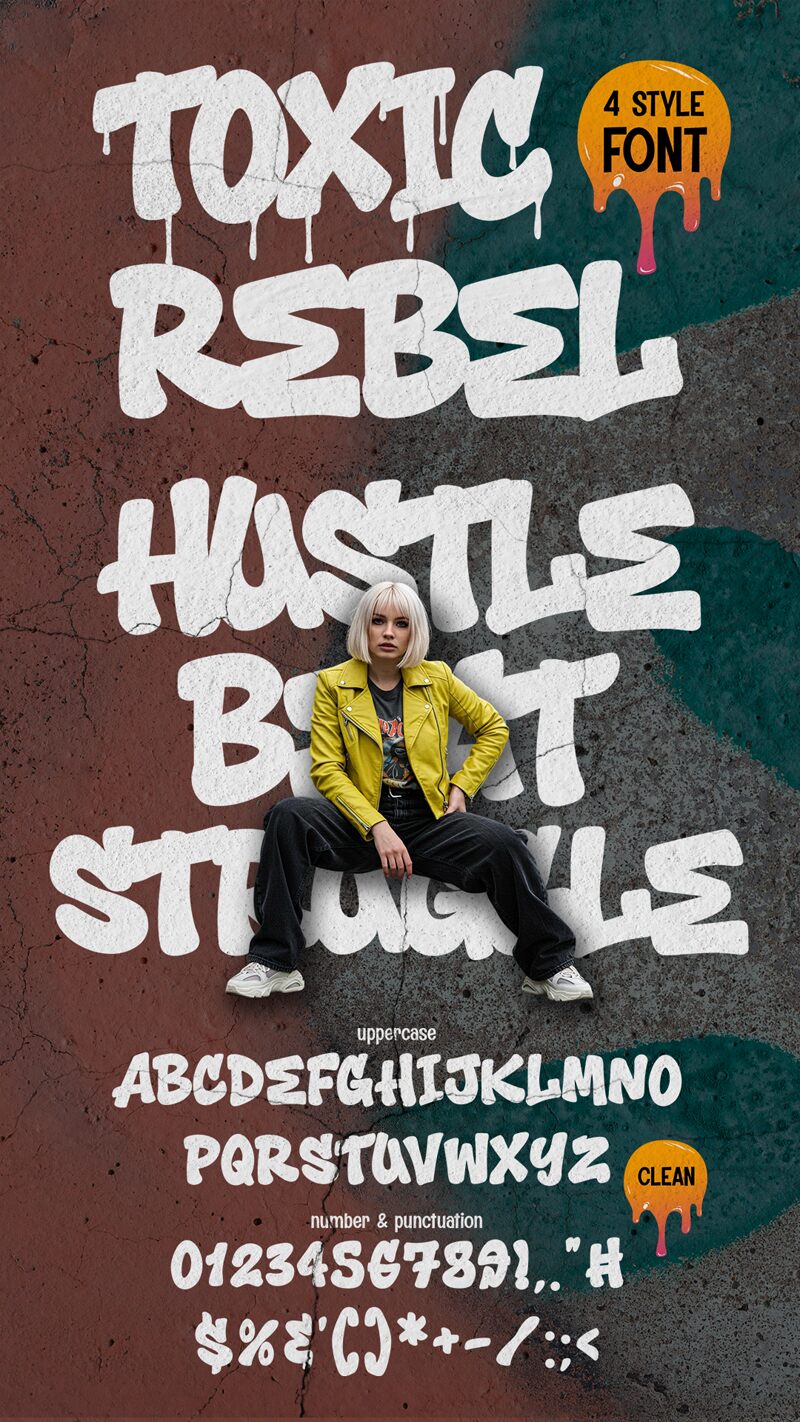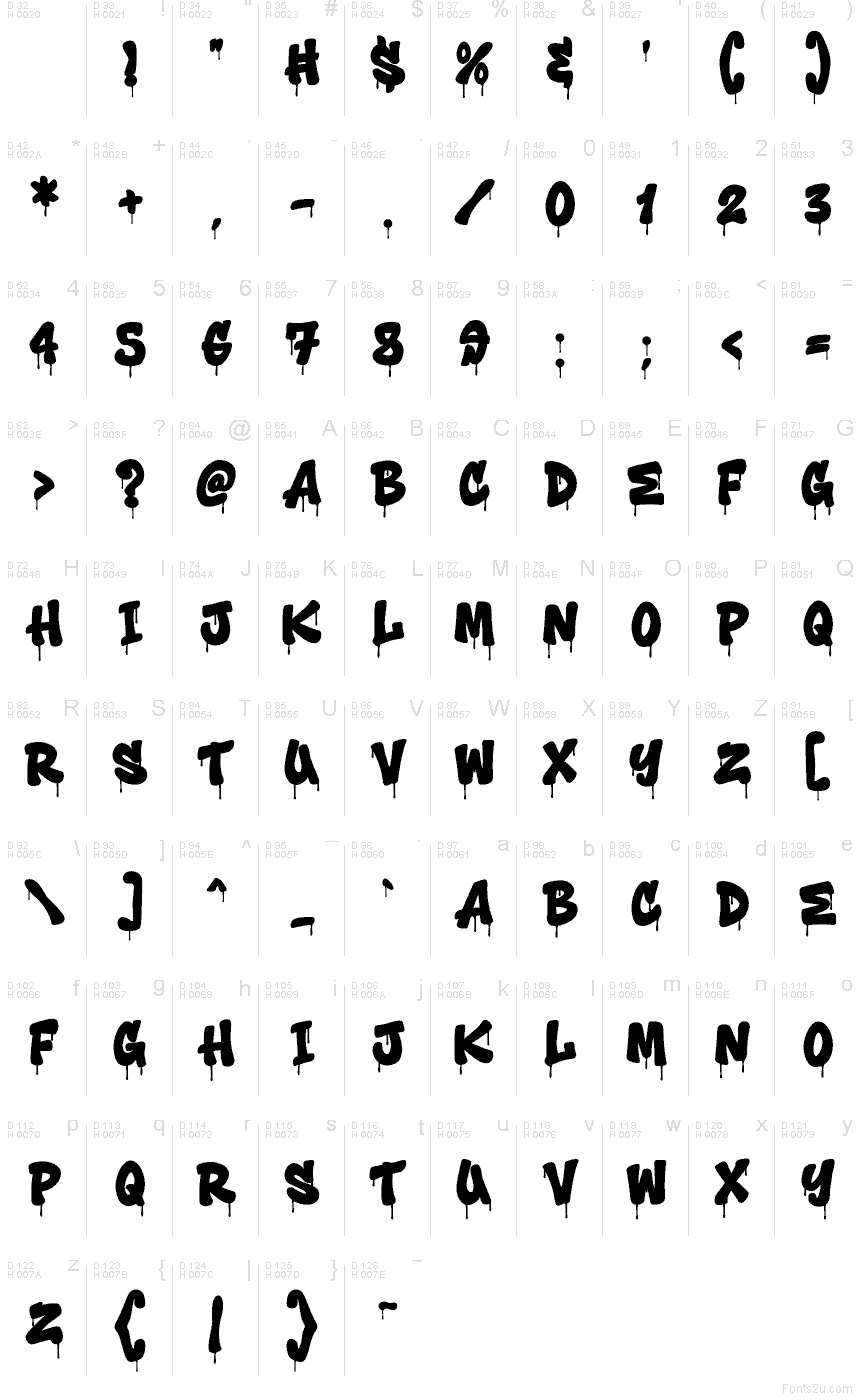
Toxic Rebel Drip font by Muhammad Panji Ramdhani of Sipanji x Cikareotype is a free graffiti font, and it comes in swinging like fresh paint that hasn’t dried yet. The letters feel chunky and hand-sprayed, with gooey drips and uneven edges that read loud, messy, and confidently rebellious. It’s got that street-poster energy-inky, wet, and a little dangerous.
Using Toxic Rebel Drip, you’ll get instant attitude on band flyers, skate graphics, streetwear logos, album covers, Halloween promos, YouTube thumbnails, and gritty event posters. This free font shines biggest at larger sizes where the drips can breathe; keep tracking slightly open if the wordmark feels too dense. Pair it with a clean, no-nonsense sans for dates, prices, and fine print so the chaos stays controlled.